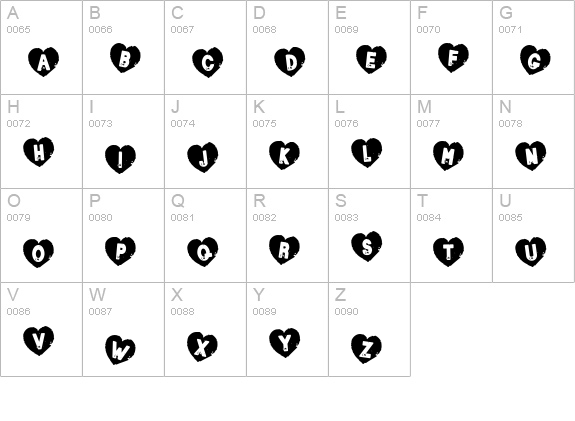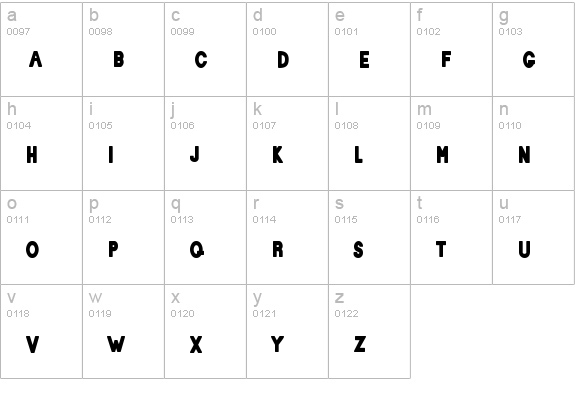
Loverboy Font Details
Introducing Loverboy font, a stylish and modern typeface that exudes charm and elegance. This versatile font is perfect for adding a touch of sophistication to your designs. With its sleek lines and unique character shapes, Loverboy font is sure to make a statement. Best of all, Loverboy font is available for free download at FontsMarket.com. Whether you're working on branding, invitations, posters, or any other project, this font will add a touch of class and sophistication. Don't miss out on the opportunity to enhance your designs with this stunning font. Download Loverboy font today and elevate your creative projects to the next level.